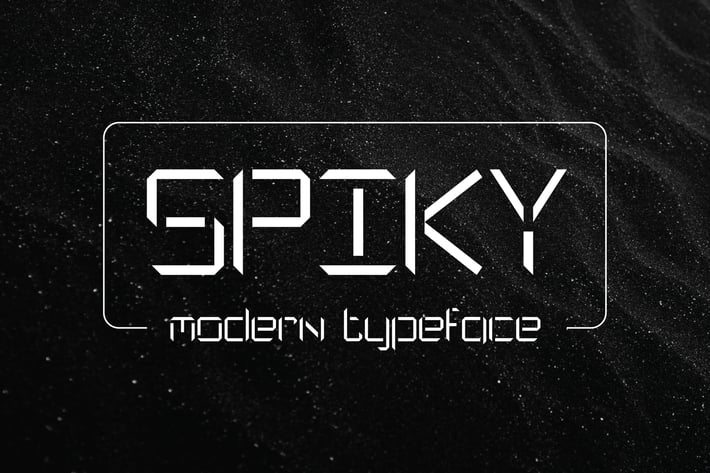
Spiky - Modern Typeface
Spiky - beautifully crafted modern typeface with 4 styles (Light, Regular, Medium, Bold) for your awesome projects.
- Consistency
- Well organized